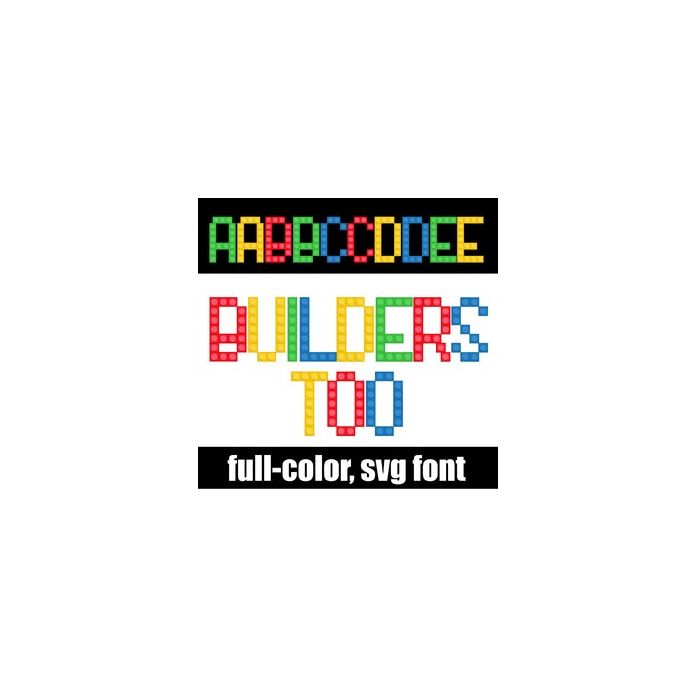
This full-color font features colorful building block lettering. There is an alt version you can access through your system's character map that contains additional colors of all the letters.